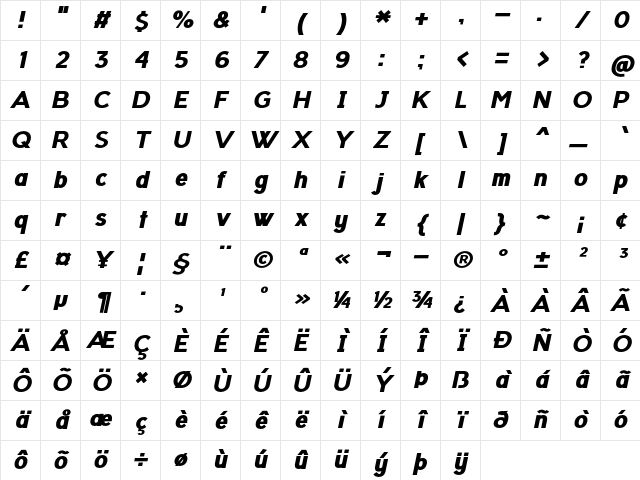
Blockjock Bold Italic
Blockjock Family
Blockjock Bold Italic
Design Context for Blockjock
Blockjock is a composed and adaptable typeface that performs quietly and consistently across a wide range of design contexts. The slanted form adds forward momentum and visual energy. Its bold stroke weight gives it real presence on the page.